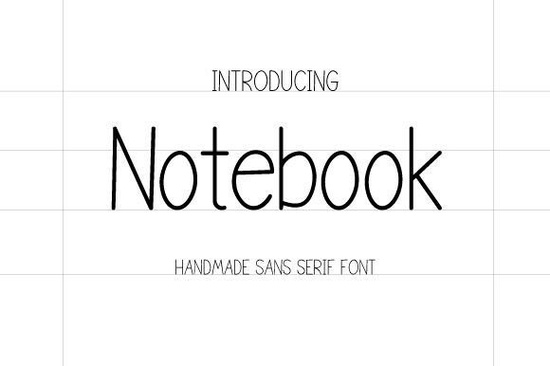
Notebook Font
If you need a handmade sans serif font that looks clean, neat, and natural the Notebook Font might be exactly what you're searching for. It's a handcrafted typeface designed to mimic the look of careful, legible handwriting. Whether you're working on branding, school-themed designs, or invitation projects, this font brings a personal touch without sacrificing readability.
What Makes a Good Handwritten Font for Design Work?
Not all handwritten fonts are created equal. Some look too messy, some are hard to read at smaller sizes, and others only work for one type of project. A good handwriting font should strike a balance between personality and clarity. You want it to feel human not robotic but it still needs to be legible on products like mugs, tote bags, greeting cards, and business materials.
The Notebook font nails that balance. It has the warmth of hand-lettered text with the structure of a sans serif typeface. This makes it suitable for a wide range of uses:
• Back-to-school designs notebooks, pencil cases, classroom posters
• Branding and logos especially for lifestyle, fashion, or feminine brands
• Invitations and cards weddings, birthdays, seasonal events
• Digital products planners, worksheets, social media templates
• Print-on-demand apparel, accessories, stationery mockups
How Does It Compare to Other Sans Serif Options?
There are plenty of sans serif fonts available, but each one serves a slightly different purpose. If you're building a font collection for your design business, it helps to understand how different styles work together.
Compared to these, the Notebook Font stands out because of its hand-crafted quality. It doesn't try to look digital or overly polished. Instead, it embraces the imperfect beauty of real handwriting while still being clean enough for professional use.
Who Is This Font Best Suited For?
This font works well for a broad audience, but here are some specific groups who tend to get the most out of it:
1. Small business owners who want their branding to feel approachable and personal
2. Crafters and hobbyists who create handmade cards, scrapbook pages, or vinyl decals
3. Print-on-demand sellers looking for unique fonts that stand out from overused typefaces
4. Teachers and educators designing classroom materials with a friendly, readable style
5. Digital content creators who need fonts for Instagram posts, Pinterest pins, or YouTube thumbnails
Because it's a handmade font, it also pairs nicely with other organic design elements think watercolor textures, paper backgrounds, and hand-drawn illustrations. If you work in Procreate on an iPad, this font installs easily and works well for lettering practice or layering into digital art.
Is It Worth Adding to Your Font Library?
If you already own several clean sans serif fonts, you might wonder whether you need another one. The short answer: if you work on projects that call for a warm, human touch yes. The Notebook font fills a gap between overly casual handwriting fonts and stiff, corporate typefaces. It's the kind of font you reach for when you want your design to feel friendly but still put-together.